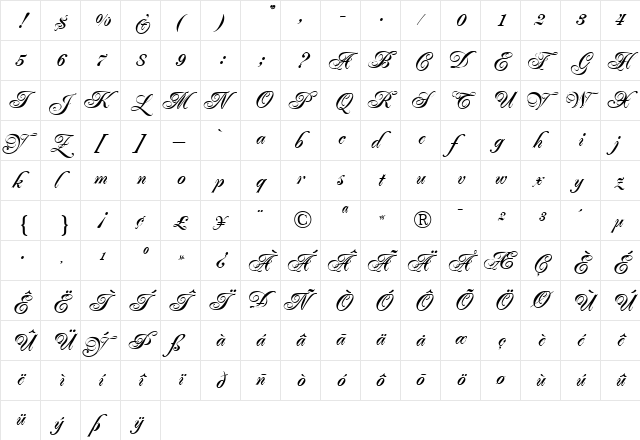
Poppl-Residenz ItalicBold Font Preview
Poppl-Residenz ItalicBold
Design Context for Poppl-Residenz Typeface
Poppl-Residenz is a composed and adaptable typeface that performs quietly and consistently across a wide range of design contexts. The dynamic lean of this cut emphasises speed and emphasis in any layout. The heavy weight commands attention and anchors typographic hierarchies.
Pro Tip: Try Poppl-Residenz for annotation and caption copy alongside an upright companion — the contrast in angle creates a dynamic but ordered typographic system.